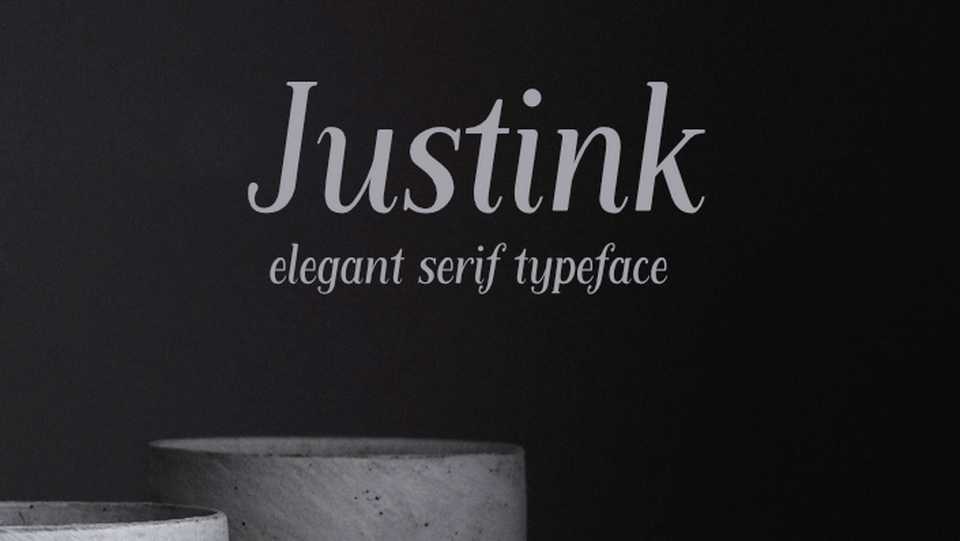
Download Justink font, an elegant italic serif typeface with a hand crafted look. Justink font is great for long texts as well as titles.
Designer: Amru ID